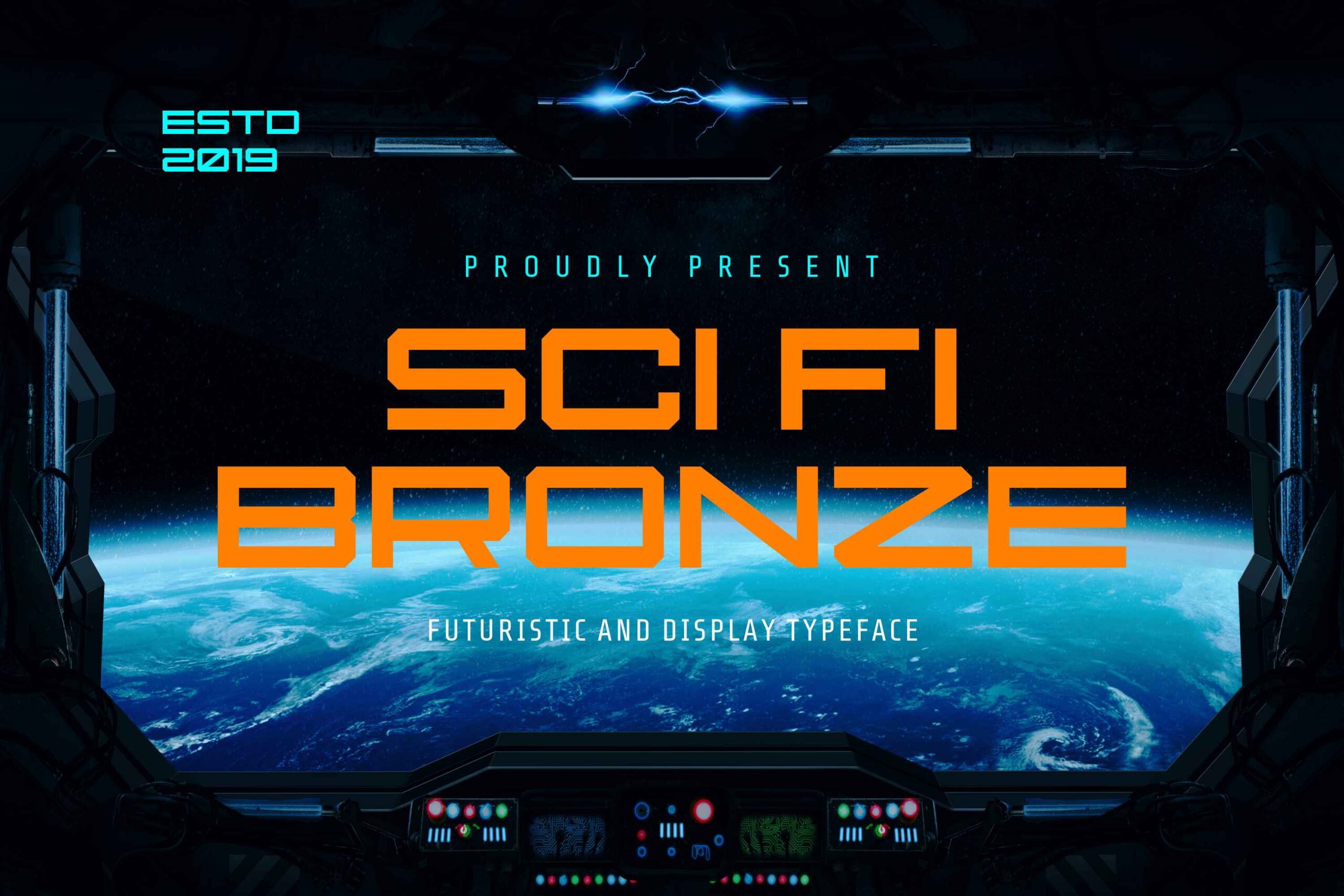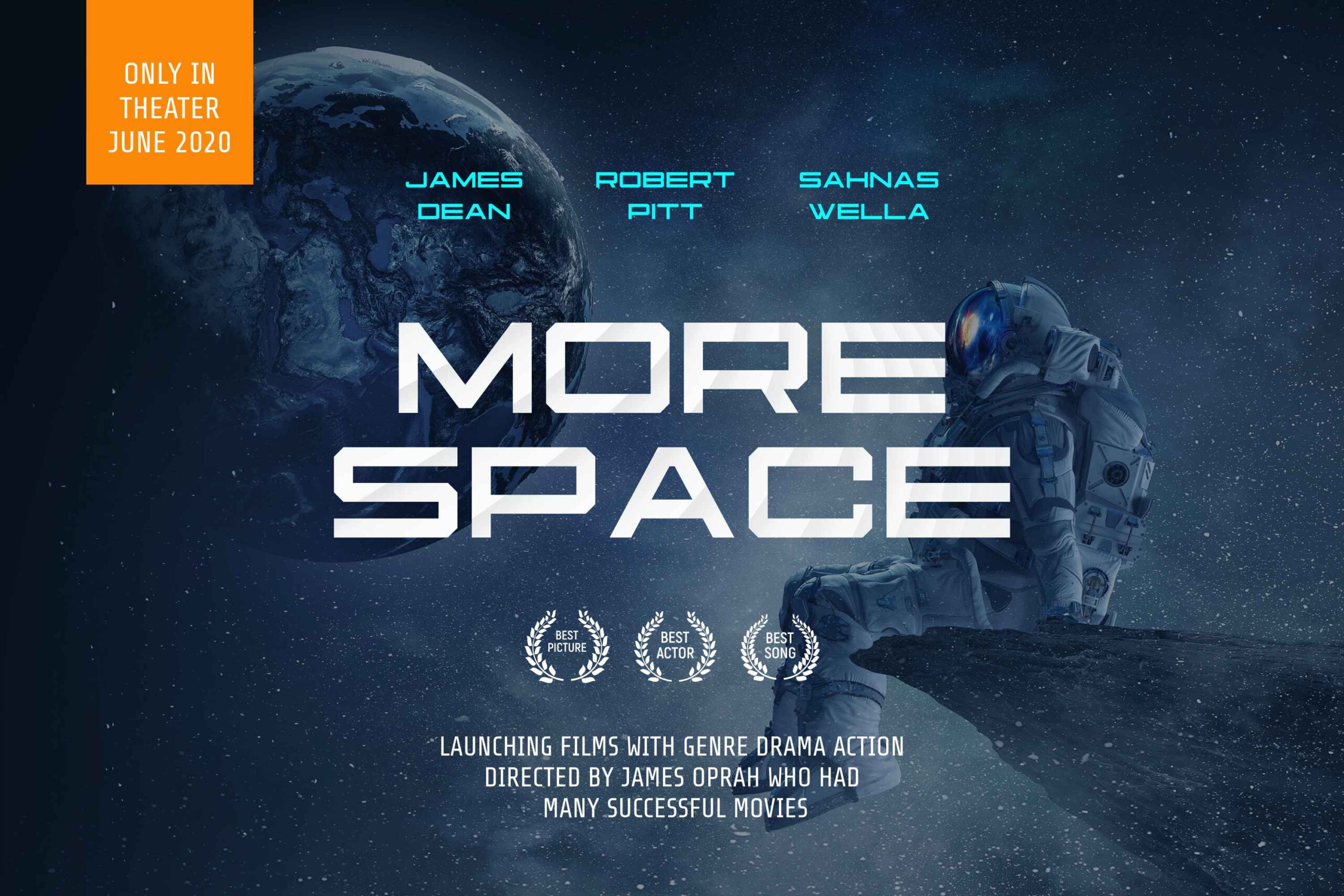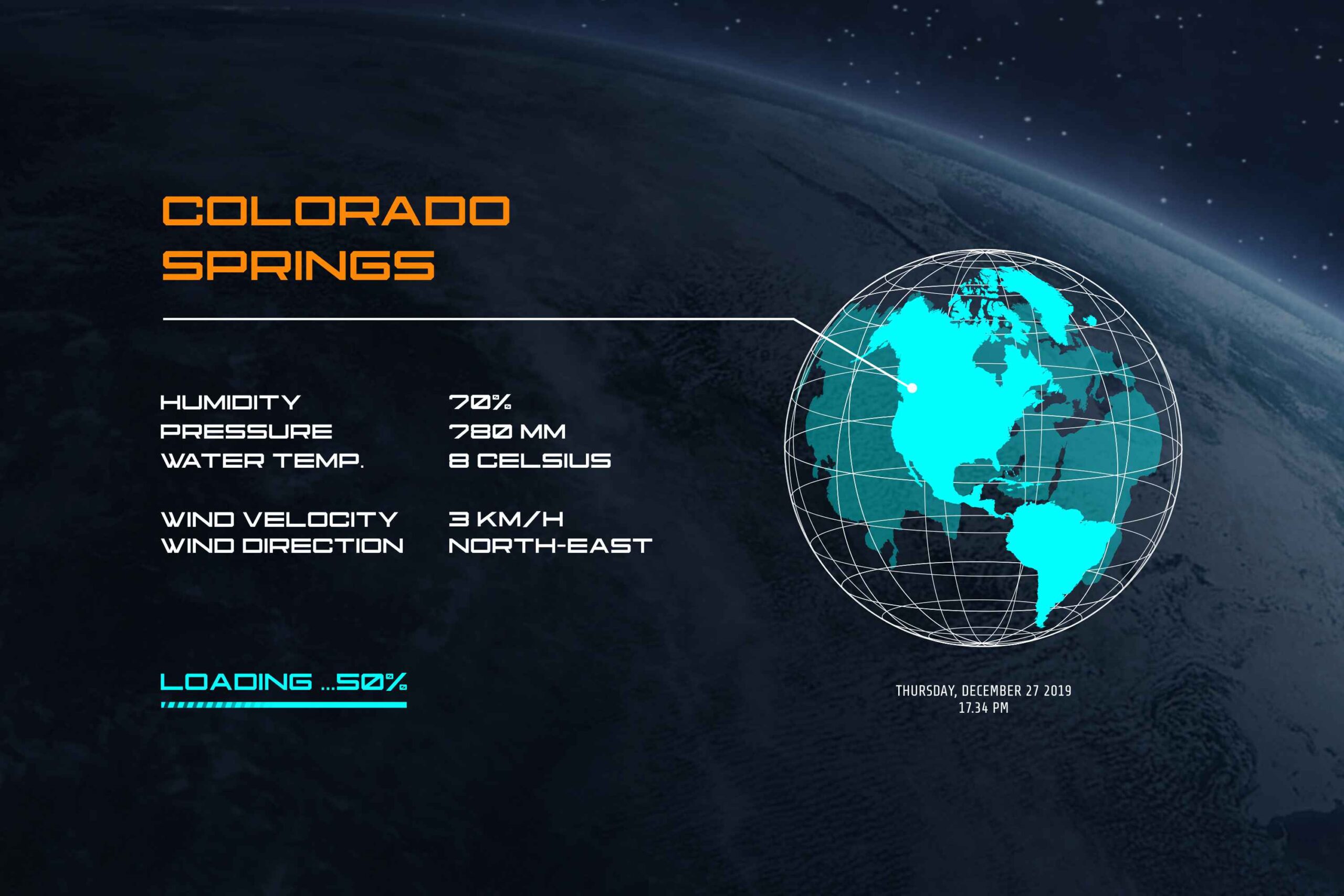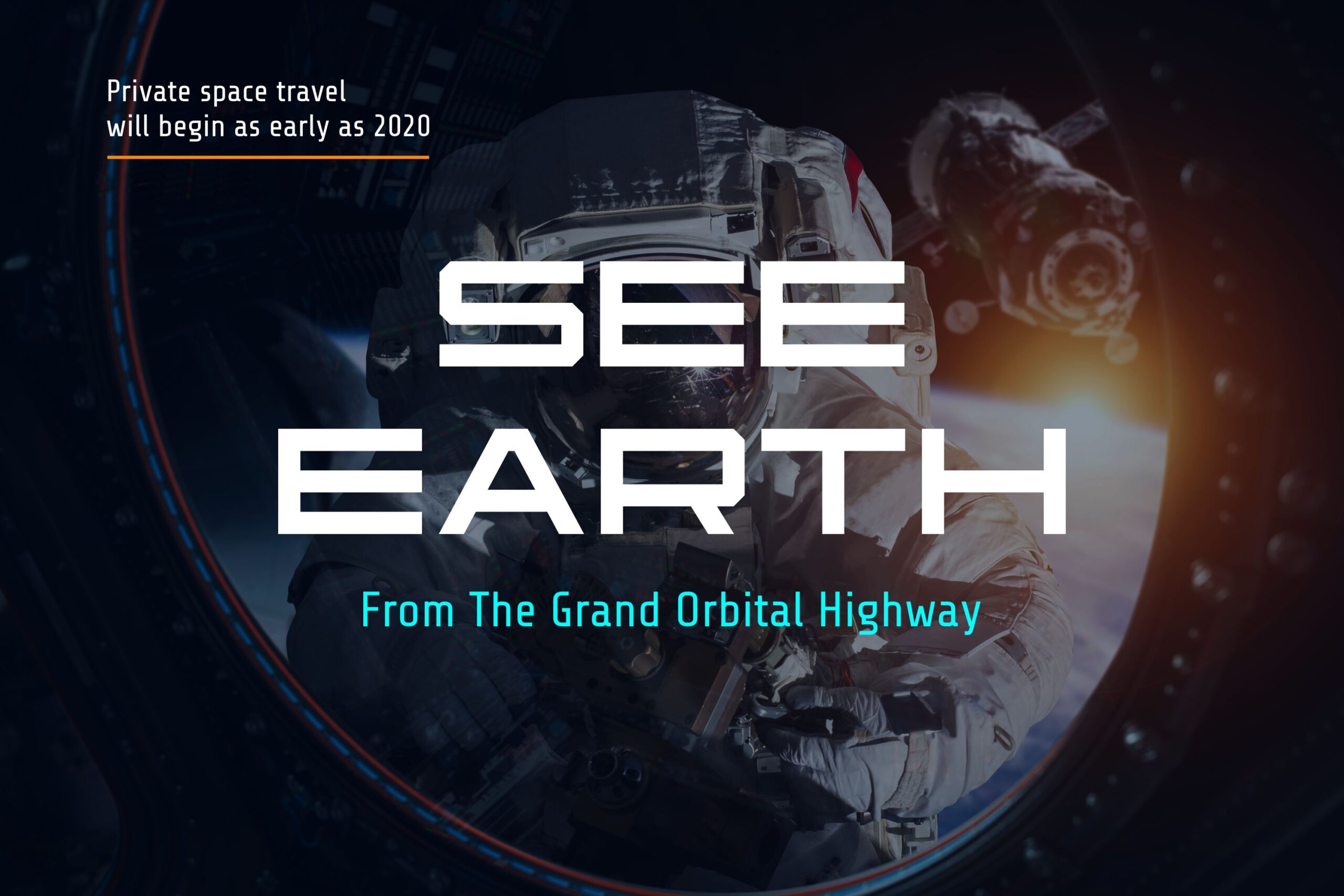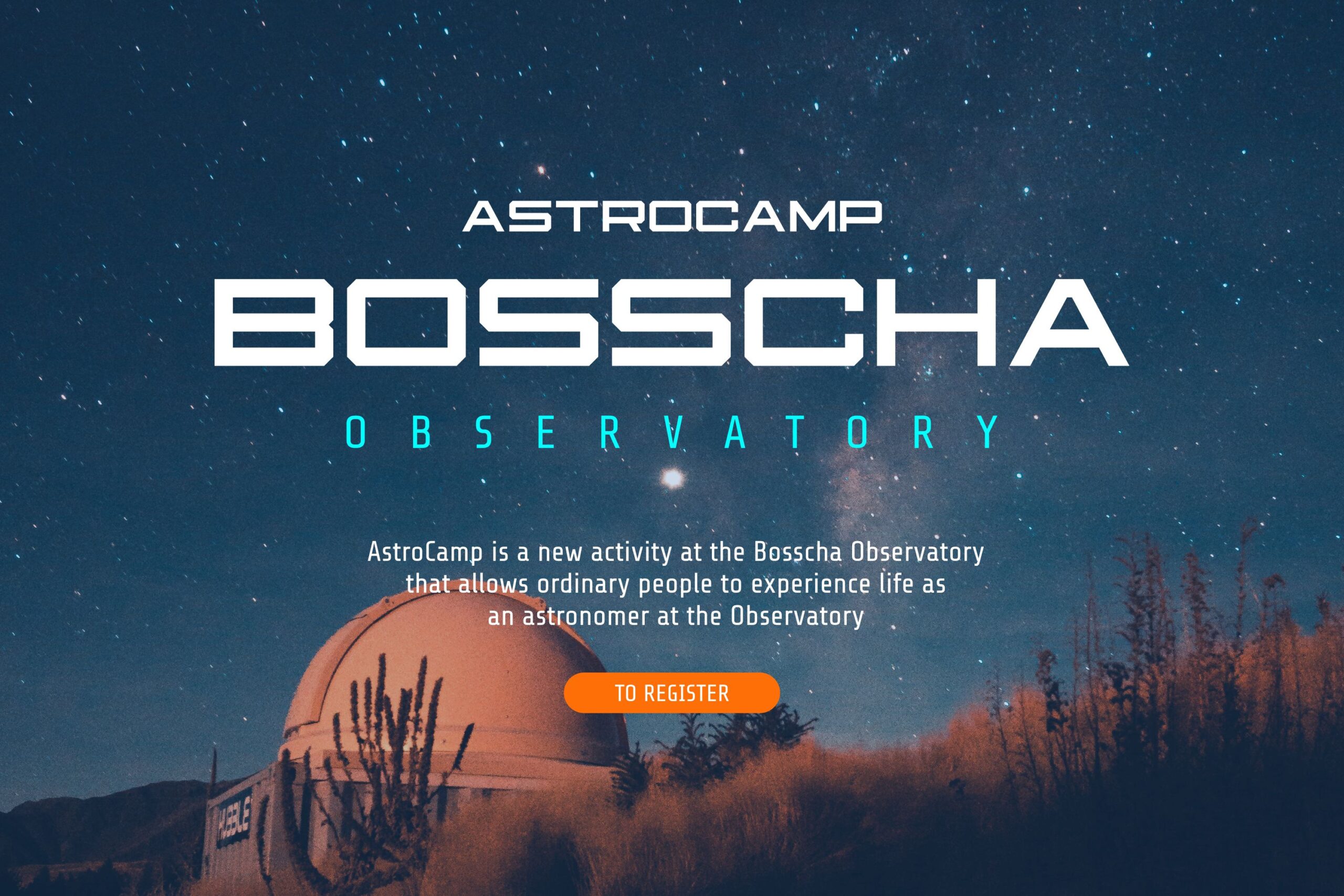
Bronze is a futuristic display typeface designed to capture the bold, technological essence of sci-fi universes. With its geometric construction, sharp terminals, and squared-off letterforms, Bronze evokes a sense of strength, precision, and digital modernism—perfect for titles, UI displays, movie posters, and tech branding. Each character carries a unique, machine-like aesthetic while remaining highly legible and balanced.
Whether you’re designing a space-themed poster, a science fiction film title, or a cutting-edge tech interface, Bronze delivers an impactful and immersive look. Its complete set of uppercase letters, numbers, and symbols supports creative freedom for futuristic design compositions. Bronze is more than a font—it’s a statement from the future.
Sci Fi Bronze